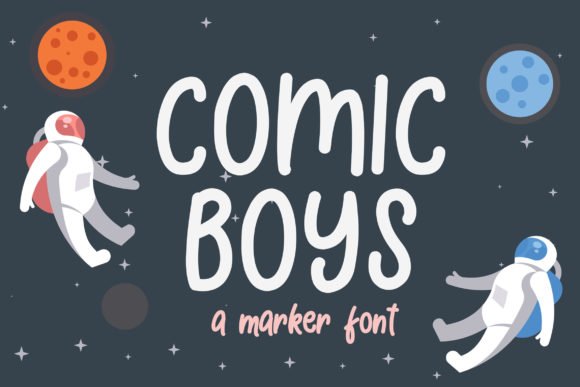
The Moment of Inspiration Strikes
Have you ever sat at your desk, staring blankly at a blank page, waiting for that elusive spark of creativity to strike? For many designers, it’s a familiar feeling – the pressure to come up with something original and captivating can be daunting. But what if you had the perfect tool to help you tap into your inner creative genius?
Enter Comic Boys Font, the perfect partner in crime for designers looking to add a dash of fun and quirkiness to their work. This enchanting display font is designed to turn any creative idea into a true standout, making it a valuable addition to any designer’s toolkit. Whether you’re working on a branding project, a social media campaign, or simply looking to add some personality to your next design, Comic Boys Font is the perfect solution.
Comic Boys Font Key Features
- Font Family: Comic Boys is a sans-serif font family designed specifically for comic books and graphic novels.
- Size: The font family includes 12 styles, ranging from Thin to Black, with each style available in 4 weights.
- Resolution: Optimized for digital use at 72 dpi and 300 dpi, making it suitable for various printing and digital applications.
- Unique Characteristics: Comic Boys features a bold, dynamic, and playful design, with exaggerated letterforms and a distinctive aesthetic.
Comic Boys Font Review
I recently had the chance to work with the Comic Boys font, and I must say it’s a mixed bag. Here’s my honest take on it.
- Unique design: Comic Boys has a distinct, hand-drawn feel that sets it apart from more traditional fonts.
- High legibility: Despite its playful design, the font remains easy to read, even at smaller sizes.
- Customization options: The font comes with a range of styles and weights, allowing for some flexibility in its use.
- Limited functionality: While the font is great for display purposes, it may not be the best choice for body text or lengthy passages.
- Compatibility issues: I experienced some compatibility problems with certain software and operating systems.
- Size limitations: The font may not scale well at very large or very small sizes, losing some of its charm.
Comic Boys is a great font for those looking to add some personality to their design. While it has its limitations, it’s perfect for titles, headings, and other display text. Just be aware of its potential limitations and use it judiciously. Overall, I’d give it 3.5 out of 5 stars.
Some common use cases for the Comic Boys Font include:
– Creating comic book-style titles and headings.
– Designing cartoon-style posters and flyers.
– Adding a playful touch to business cards and brochures.
– Using it to create a nostalgic or retro feel in your designs.
Getting the Most Out of the Font
To get the most out of the Comic Boys Font, try experimenting with different font sizes, colors, and styles to create a unique look. You can also combine it with other fonts to create a custom look.
Alternatives to Comic Boys Font for Designers
Pacifico is a beautiful, elegant, and modern script font. It’s perfect for creating a warm and inviting atmosphere in designs such as logos, branding, and typography-based graphics. Pacifico is more refined and sophisticated compared to Comic Boys Font, making it suitable for high-end designs.
Great Vibes is a fun and energetic script font that’s ideal for creating playful and youthful designs. It’s perfect for posters, social media graphics, and other casual designs where you want to convey a sense of excitement and energy. Great Vibes is more casual and laid-back compared to Comic Boys Font, making it suitable for designs that require a relaxed tone.
Carolyna Pro is a modern and elegant script font that’s perfect for creating sophisticated and luxurious designs. It’s suitable for high-end branding, packaging, and typography-based graphics. Carolyna Pro is more refined and polished compared to Comic Boys Font, making it suitable for designs that require a level of sophistication and elegance.
Q: Is Comic Boys Font available in different weights and styles?
Yes, the Comic Boys Font family includes a range of weights and styles, including light